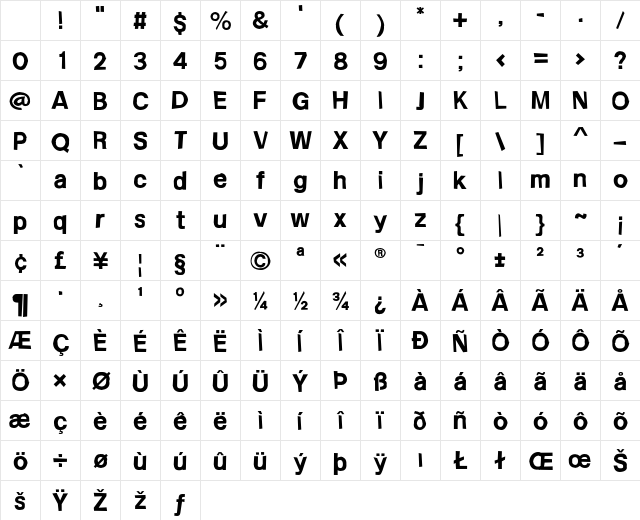
Complete Frail Sans Bold glyph index. Displaying only characters natively supported by Frail Sans Bold font.
Frail is a composed and adaptable typeface that performs quietly and consistently across a wide range of design contexts. Its bold stroke weight gives it real presence on the page.